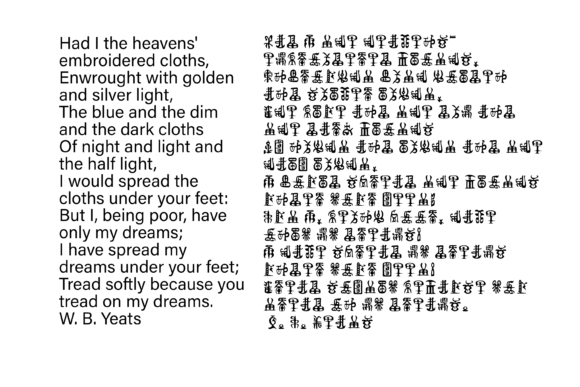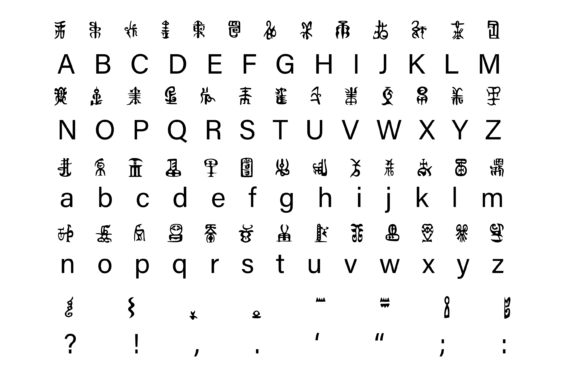
Fantasy Script 13 Font: The Perfect Addition to Your Fantasy World
Are you a designer, writer, or crafter looking to add a touch of magic to your next project? Look no further than the Fantasy Script 13 Font. This enchanting font is perfect for your next Dungeons and Dragons campaign, fantasy LARP adventure, novel, or whatever else you’re working on. With its unique and captivating design, Fantasy Script 13 is sure to transport your audience to a world of wonder and awe.
What is Fantasy Script 13 Font?
Fantasy Script 13 Font is a specially designed font that captures the essence of fantasy and medieval writing. This font includes the standard English alphabet and basic punctuation, making it easy to use for a variety of projects. Whether you’re creating a title page for your novel, designing a logo for your fantasy-themed business, or crafting a menu for your LARP event, Fantasy Script 13 Font is the perfect choice.
Key Features of Fantasy Script 13 Font
- Unique and Captivating Design: Fantasy Script 13 Font features a distinctive and eye-catching design that is sure to grab attention. Its intricate lines and flourishes evoke a sense of medieval grandeur and mysticism.
- Standard English Alphabet and Basic Punctuation: This font includes all the characters you need to create professional-looking text, from A to Z, a to z, and basic punctuation marks.
- Versatile: This font can be used for a wide range of projects, from titles and headings to body text and captions.
Uses for Fantasy Script 13 Font
Fantasy Script 13 Font is perfect for a variety of projects, including:
- Dungeons and Dragons Campaigns: Add a touch of magic to your D&D campaign with Fantasy Script 13 Font. Use it to create titles, headings, and character names that will transport your players to a world of wonder.
- Fantasy LARP Adventures: Create an immersive experience for your LARP participants with Fantasy Script 13 Font. Use it to design menus, signs, and other materials that will add to the fantasy atmosphere.
- Novels and Short Stories: Give your fantasy novel or short story a professional look with Fantasy Script 13 Font. Use it to create titles, headings, and chapter headings that will draw readers in.
- Design and Crafting Projects: Add a touch of fantasy to your design and crafting projects with Fantasy Script 13 Font. Use it to create logos, labels, and other materials that will make your project stand out.
Tips for Using Fantasy Script 13 Font
Here are a few tips for getting the most out of Fantasy Script 13 Font:
- Use it Sparingly: While Fantasy Script 13 Font is beautiful, it can be overwhelming if used too much. Use it sparingly to add emphasis and create visual interest.
- Experiment with Different Sizes and Colors: Fantasy Script 13 Font looks great in a variety of sizes and colors. Experiment with different combinations to find the one that works best for your project.
- Pair it with Other Fonts: Fantasy Script 13 Font pairs well with other fonts, especially serif and sans-serif fonts. Experiment with different pairings to find the one that works best for your project.
Fantasy Script 13 Font is a unique and captivating font that is perfect for adding a touch of magic to your next project. With its intricate design and versatility, it’s sure to become a favorite among designers, writers, and crafters. Whether you’re creating a Dungeons and Dragons campaign, a fantasy LARP adventure, or a novel, Fantasy Script 13 Font is the perfect choice. So why wait? Download Fantasy Script 13 Font today and start creating your own fantasy world!